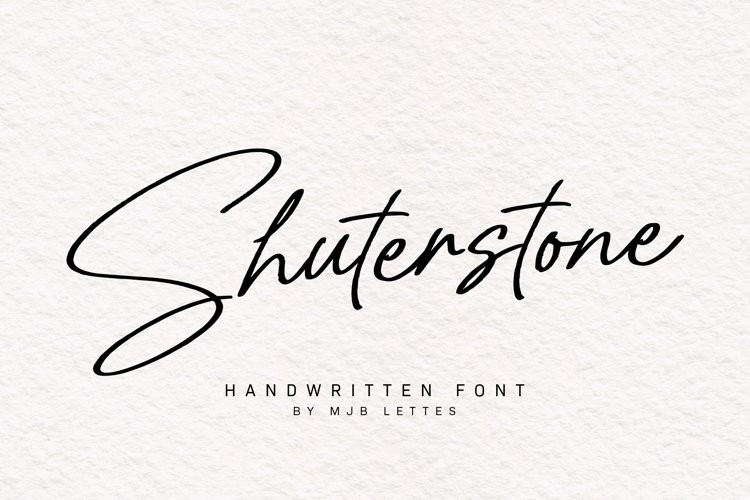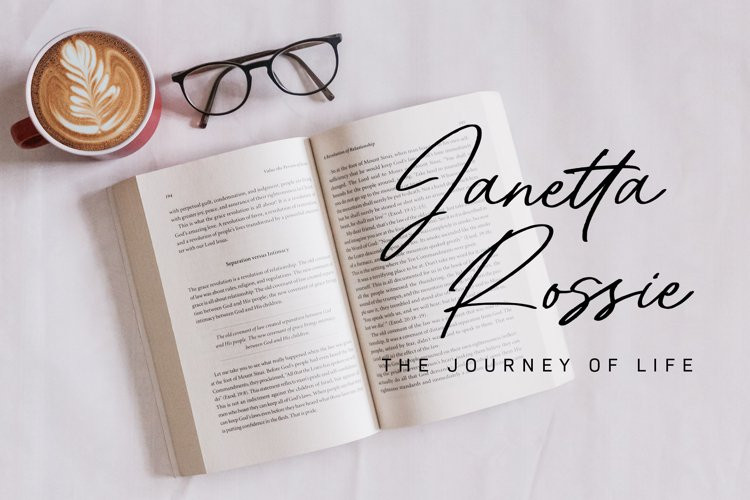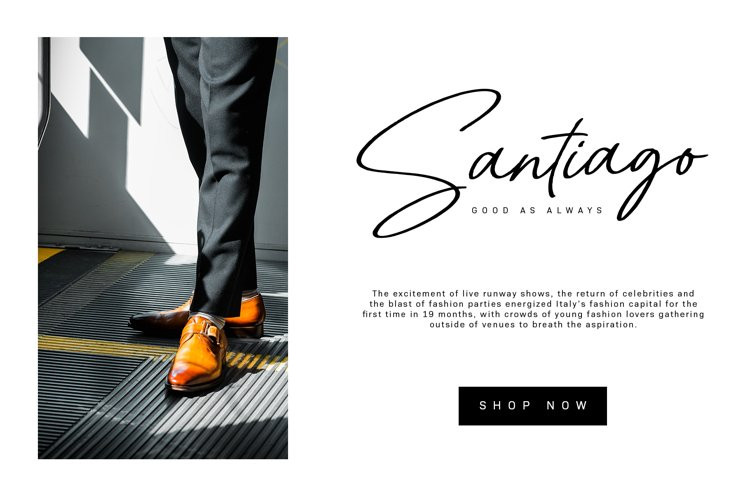
Shuterstone Font
Shuterstone is a modern handwritten script with a nutural handwriting touch, all the uppercase character are designed to be unique so that it will give great impression to the design
Shuterstone has multilanguage support and it’s PUA encoded which means you can access all glyphs and alternates with ease!